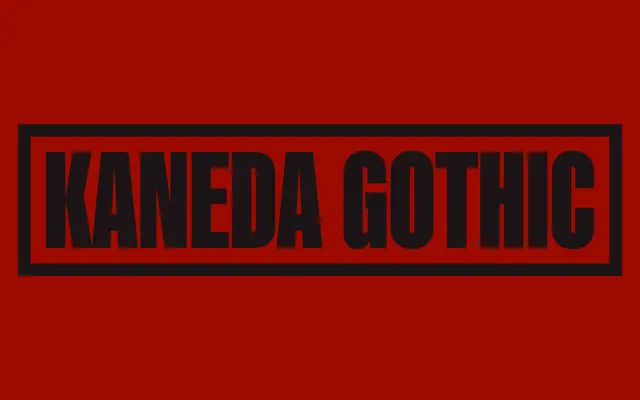
Kaneda Gothic
A geometric sans built on woodtype-era gaspipe letterforms, sharpened for contemporary headline and logo use.
Taking the proportions of woodtype-era gaspipe gothics as its starting point, Kaneda Gothic tightens the curves and sharpens the lines for high-impact display settings. Seven weights with matching italics cover the full range from delicate to heavy, making it workable across headlines, captions and title sequences. The design positions itself between retro-industrial feeling and present-day graphic clarity, without committing entirely to either.
Described explicitly as a geometric 'gaspipe' gothic rooted in woodtype-era forms, refined with sharp curves; fits squarely in the geometric sans-serif category with display-weight sensibilities.